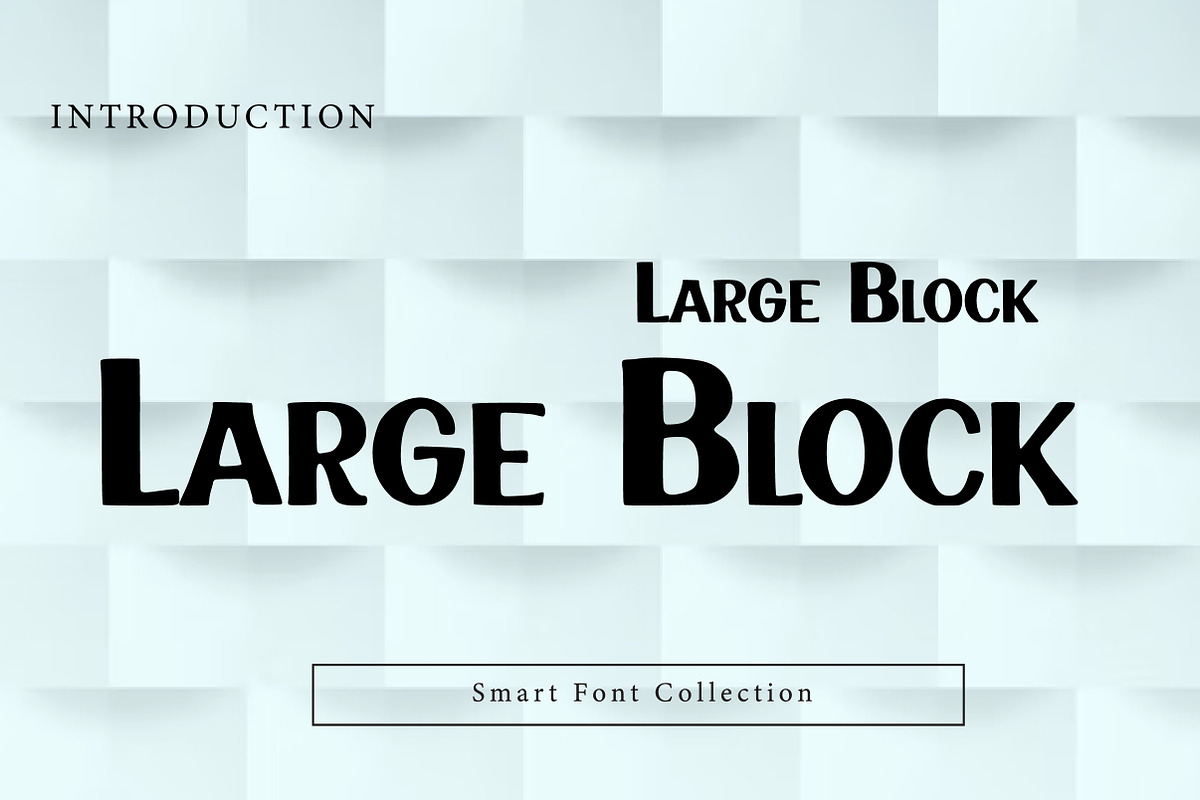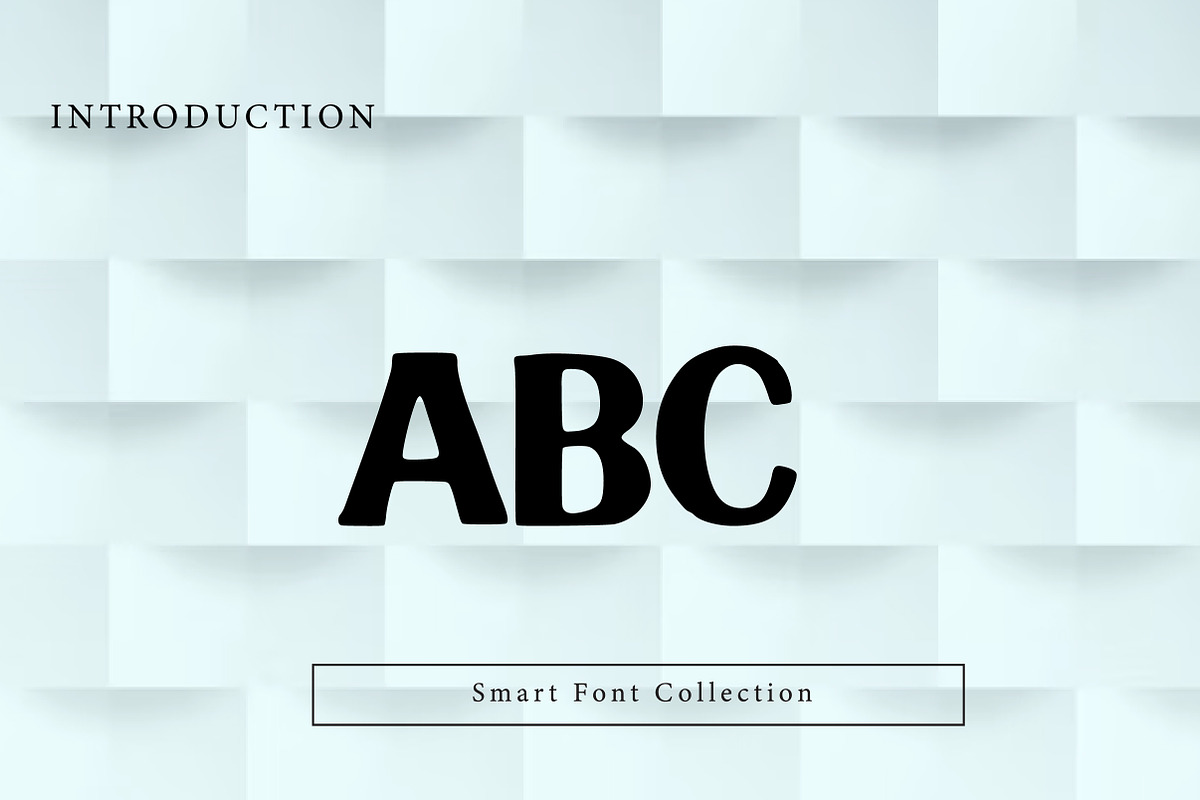
Large Block
Large Block is a bold and clean block-style display font designed for maximum readability and strong visual impact. Featuring thick strokes, solid letterforms, and a confident modern structure, this font is perfect for headlines, posters, logos, branding, signage, packaging, advertising, and social media designs. Large Block delivers a powerful and straightforward look that works great for modern typography, bold layouts, and attention-grabbing titles.